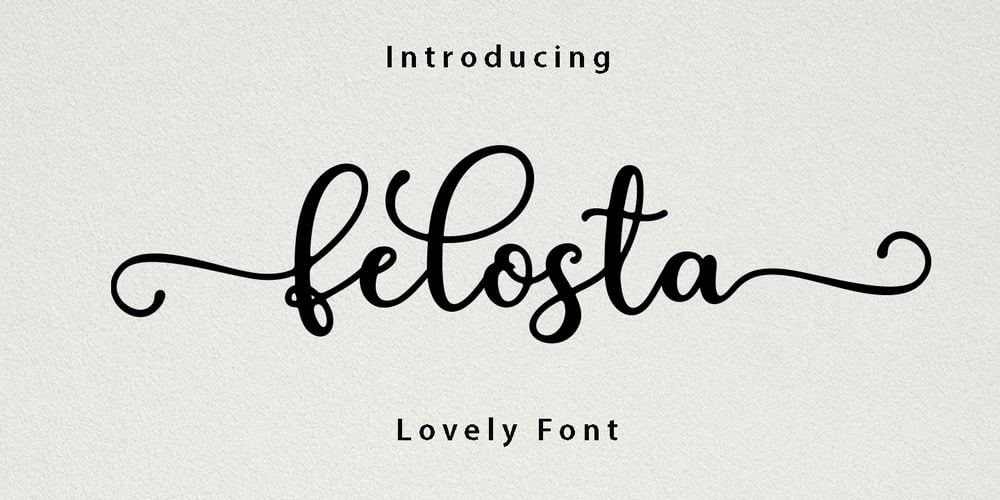
Felosta
Felosta font
Felosta Font Family was designed by Nasrullah and published by Sulthan Studio. Felosta contains 1 styles and family package options. Felosta script is a new, fresh calligraphy font that is attractive and elegant, with a few cute ties in the heart that can be connected.Great for invitations, greeting cards, branding materials, business cards, quotes, posters, and more!